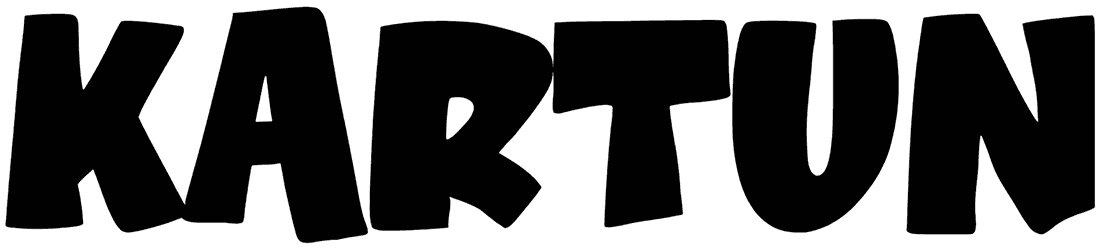
Kartun Font
Kartun brings you new paths of creativity that you can use to add a unique personality to your designs. This cartoon font is related to the feeling of childhood and enthusiasm, and can be widely used in projects with informal topics.
Even the absence of small letters and some numbers won’t be an obstacle to using this fancy font in different projects. So if you want to present posters, packaging, or book covers, the best way is to download Kartun.